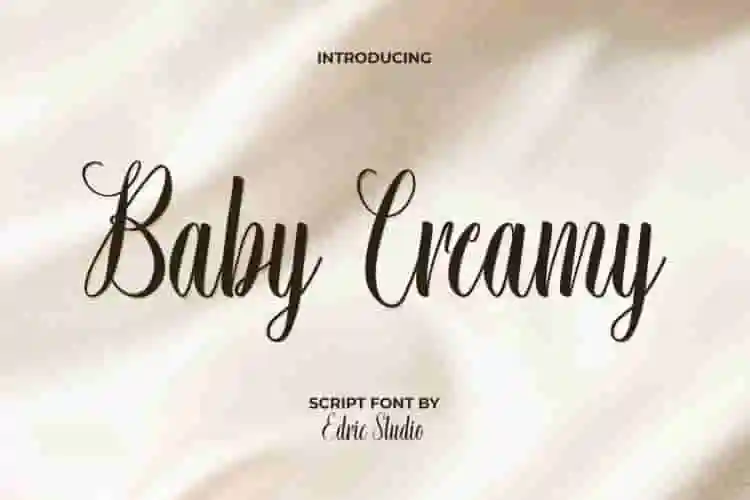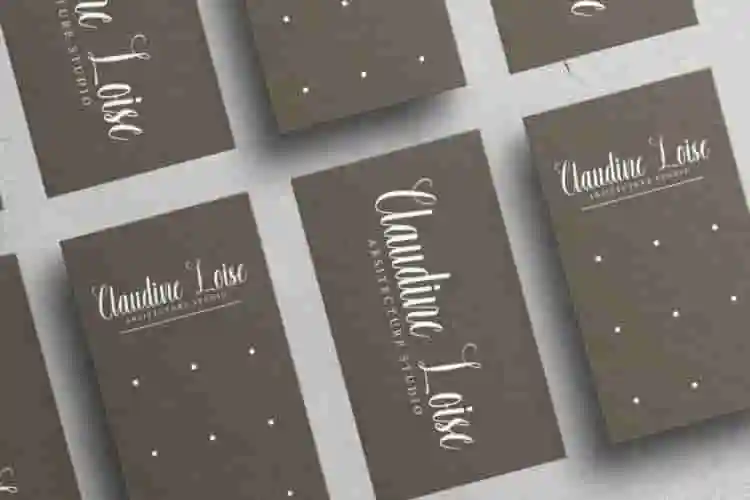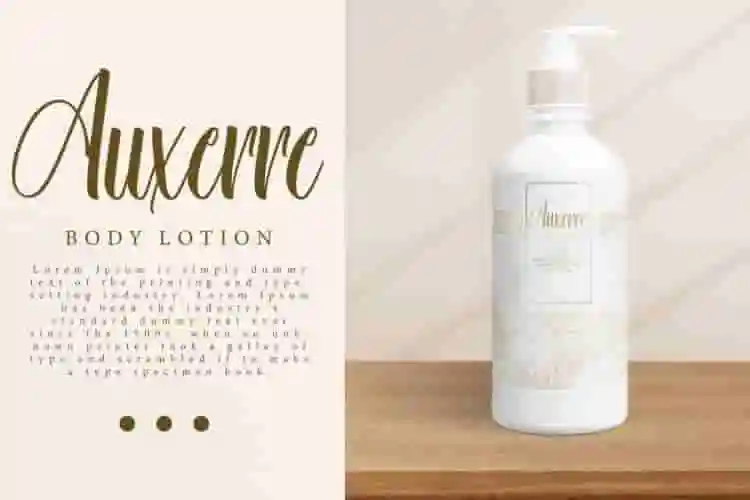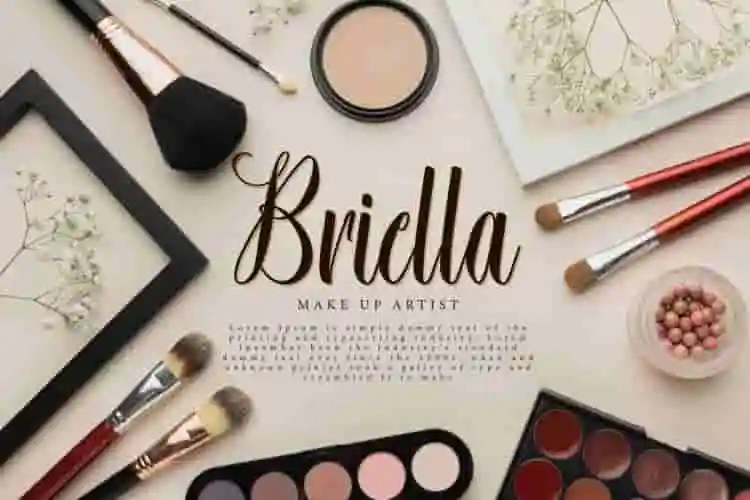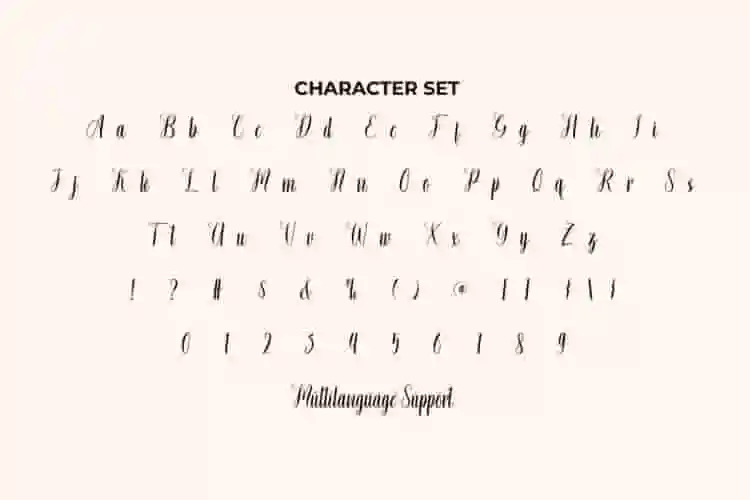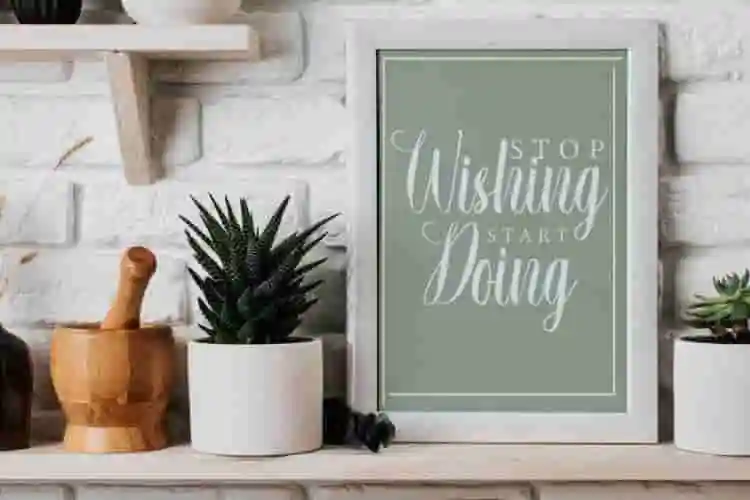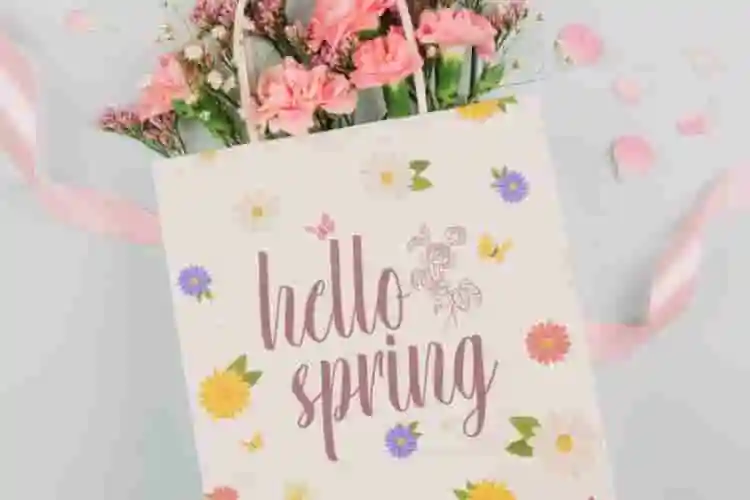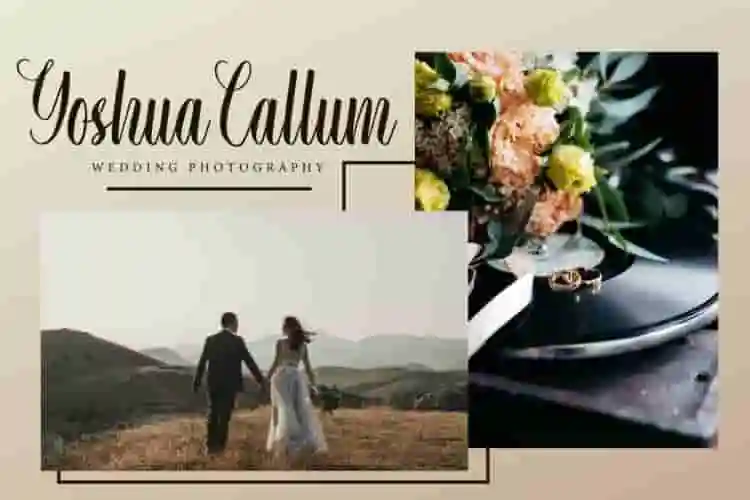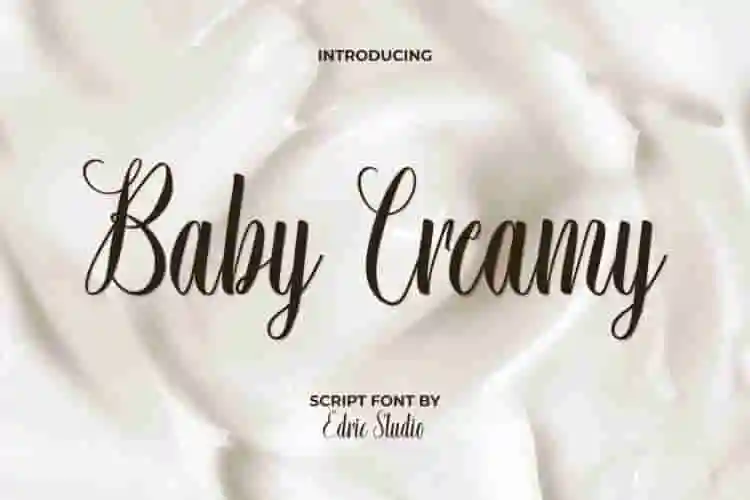
Baby Creamy Font is an alluring soft script font created by EdricStudio. This font has a neat and classy impression and easy to read making it suitable for any industry, such as accessories, architect, clothing brand, cosmetic, event organizer, flower shop, photography, printing, publishing, restaurant, and much more.
Baby Creamy Font comes with a full set of Uppercase and Lowercase Basic Characters, Number, a large range of Punctuation and Symbol. It has a stunning characters set, perfectly managed with well spaced and kerning. Baby Creamy Font will be great for any projects (with extended license) including : brand logo, business card, label, packaging design, paper bag, photo album, quote, sticker, website, etc.
Whether you’re working on baby-themed products, social media posts, logos, or packaging, Baby Creamy Script Font delivers a soft, whimsical tone that feels both personal and polished. It’s ideal for kids’ brands, greeting cards, or anything that needs a touch of cuteness.
This carefully crafted script font features gentle curves and a consistent, flowing baseline—making it easy to read while maintaining a warm and handmade look. It’s perfect for designs that want to feel friendly and approachable.
- Uppercase & lowercase letters
- Smooth, rounded script style